Top 30 Free and Premium Gaming Fonts That Will Level Up Your Design
Whether you’re creating the next blockbuster video game, creating fan art, or crafting immersive visuals, choosing the right font is crucial to creating a memorable gaming experience. Typography in games has evolved considerably, with studios like Cyberpunk 2077 and The Last of Us using different fonts to enhance atmosphere and storytelling, capturing the player’s attention.
Gaming fonts aren’t just for decoration; they’re part of the storytelling toolkit. From retro arcades like Pac-Man to sleek sci-fi interfaces like Halo, typography contributes to a game’s unique personality, influencing both first impressions and player retention. In this article, we’ll explore the top 30 gaming fonts—20 free and 10 premium options—that can take your designs to the next level.
Why Gaming Fonts Are Important?
Fonts in games go far beyond readability; they help players instantly connect to the game’s setting, mood, and style. Imagine if Elden Ring had a playful, comic font instead of the current gothic typeface – it wouldn’t convey the same dark, mysterious world. Gaming fonts set player expectations and often reflect the game’s identity, making them an essential part of visual branding.
Examples like the gritty, mechanical font in Borderlands or the clean, futuristic typeface in Destiny 2 show how typography can create a powerful and consistent visual language. A well-chosen font can make a game instantly recognizable, even if it’s used in simple promotional images or the user interface, ultimately boosting brand recall and helping the game stand out in a competitive market.
How to Pick a Good Gaming Fonts?
How to Pick the Perfect Gaming Font
Before diving into the list, let’s look at how to choose a gaming font. Here’s what to consider:
- Readability: Ensure that the font is clear at different sizes and on various screens.
- Theme Fit: Match the font style to your game’s genre. A sci-fi game might suit a sleek, high-tech font, while a fantasy game could call for something ornate.
- Versatility: The font should work across different parts of the game, from title screens to in-game text, without losing impact.
The Top 20 Free Gaming Fonts That Will Transform Your Design
1. Orbitron
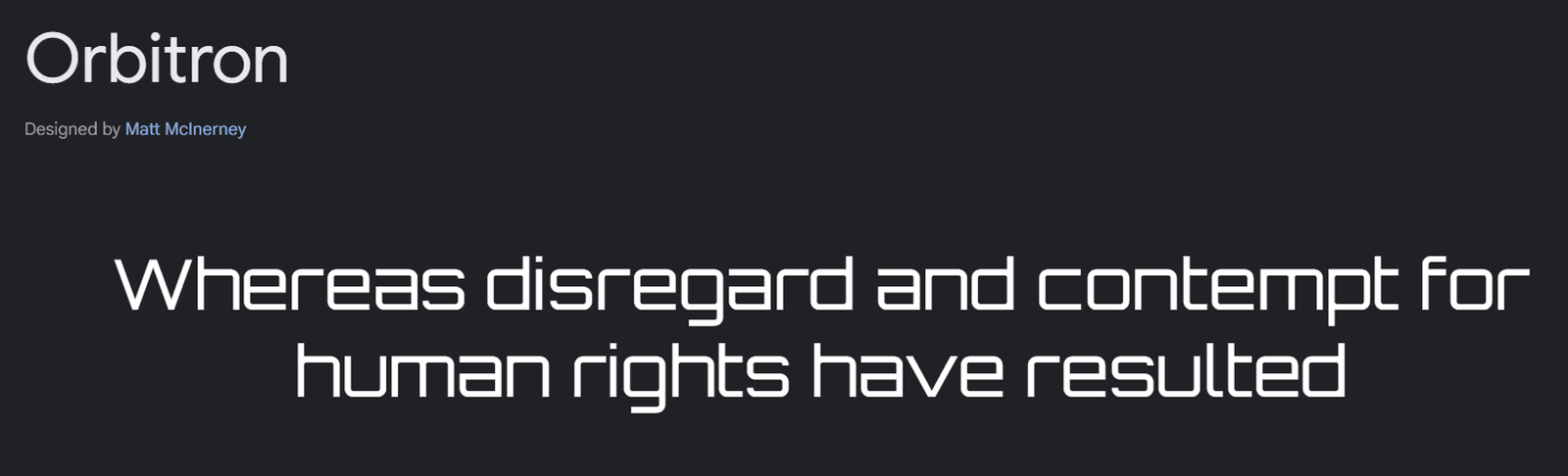
Orbitron is a sleek, futuristic font that’s perfect for sci-fi and tech-themed games. Its clean, geometric lines give it a modern and high-tech feel, making it ideal for projects that want to convey a sense of innovation or space exploration.
Orbitron is very easily readable, even at small sizes, and it works well in both titles and in-game text. Plus, it’s free to use, making it a popular choice among game designers. If you’re creating a game with a futuristic vibe, Orbitron is a font that delivers a polished, professional look.
2. Press Start 2P
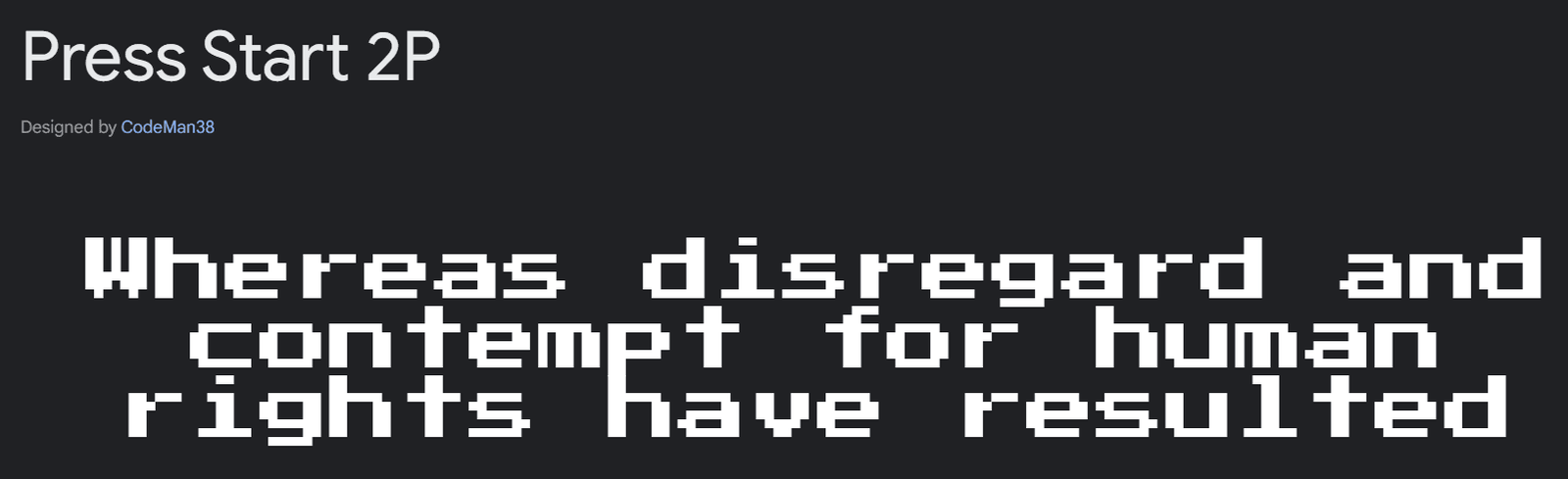
Press Start 2P is perfect for retro and 8-bit game designs. Inspired by classic arcade games, this pixelated font brings a nostalgic touch to your project. Its retro style works great for game titles, menus, and in-game text, reflecting the charm of old-school gaming. Press Start 2P is free to use, making it a great choice for those who want to recreate the experience of vintage games.
3. Zorque
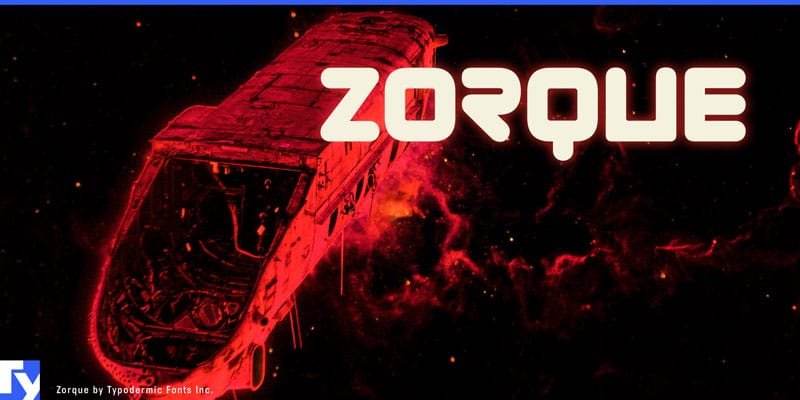
Zorak is a bold, comic-book-style font that’s great for action-packed games. Its strong, dramatic letters offer an energetic and eye-catching look, making it ideal for intense gameplay scenarios and superhero themes. Zorak is free to use and adds a vibrant, dynamic touch to your game design.
4. Audiowide
AudioWide has a modern, sleek design with rounded edges, making it ideal for futuristic themes.
Its clean, geometric style fits well with high-tech and sci-fi games, providing a polished look to titles and user interfaces.
AudioWide is free to use and provides a contemporary touch to your game’s design.
5. Kenney Future
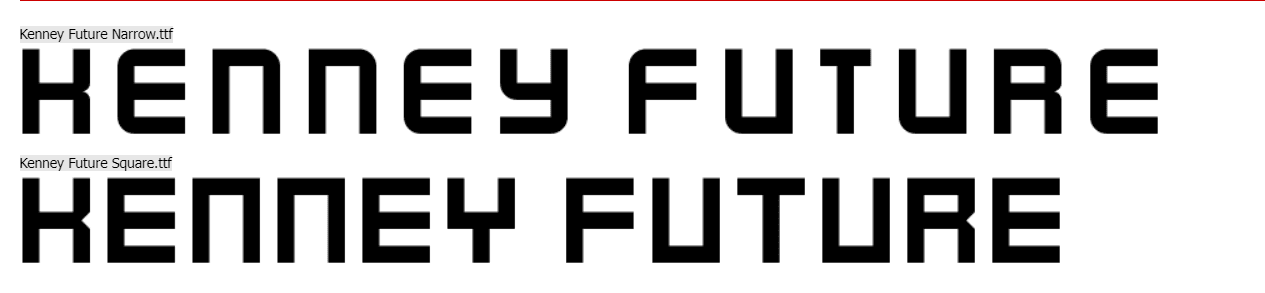
Kenny Future is a versatile, game-specific font designed by Kenny. Its clean, modern design fits seamlessly into a variety of game genres, from platformers to strategy games.
Kenny Future’s simple, easy-to-read letters ensure clear communication throughout your game. It’s free to use, making it a great choice for game developers.
6. Exo 2
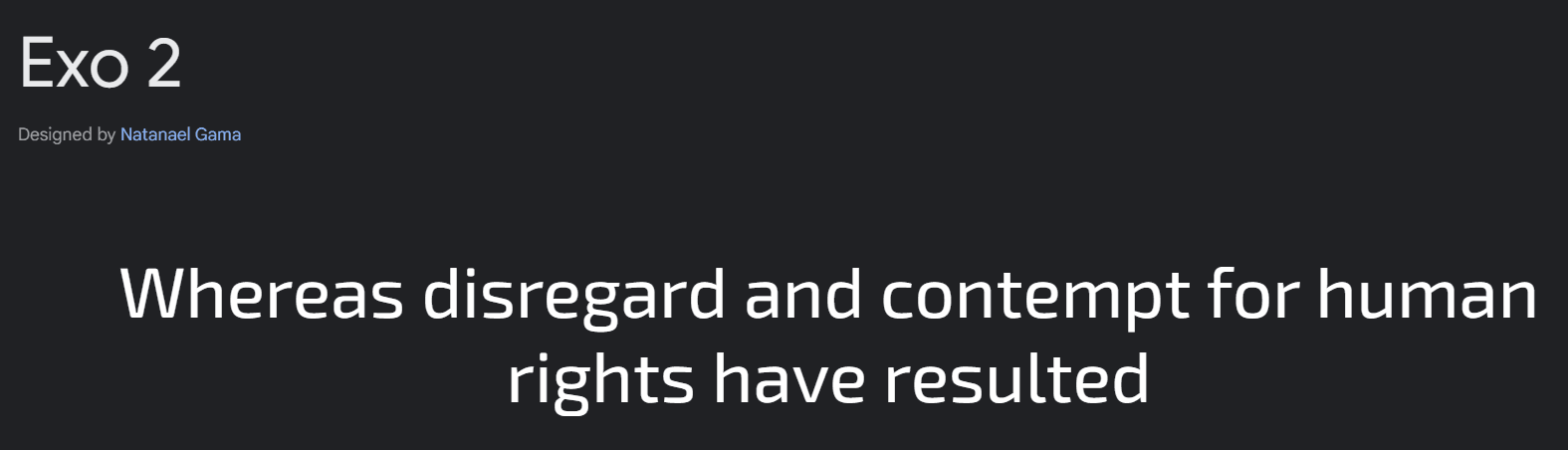
Exo 2 combines sleek lines with a minimalist design, making it great for futuristic and tech-focused games.
Its balanced, clean look ensures readability in different text sizes, whether for titles or in-game dialogue. Exo 2 comes in multiple weights and styles, offering flexibility, and is free to use.
7. Russo One
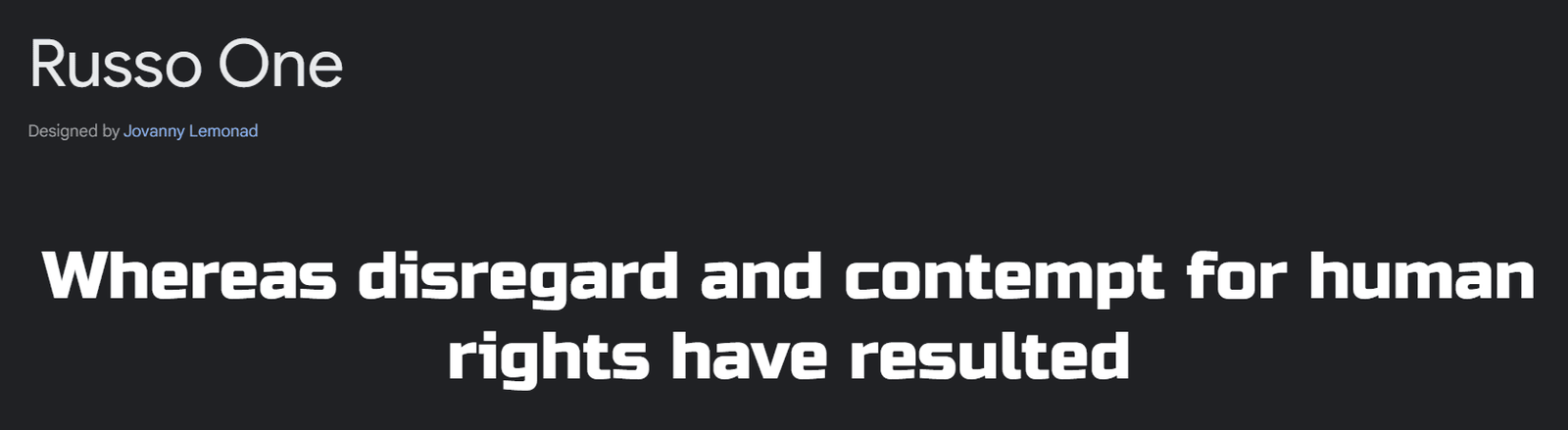
Russo One is a bold, industrial-style font with a very strong presence, perfect for military or strategy games. Its thick, strong letters convey strength and authority, making it ideal for titles and in-game text where clarity and impact are important. Russo One is free to use and gives your game a powerful, robust look.